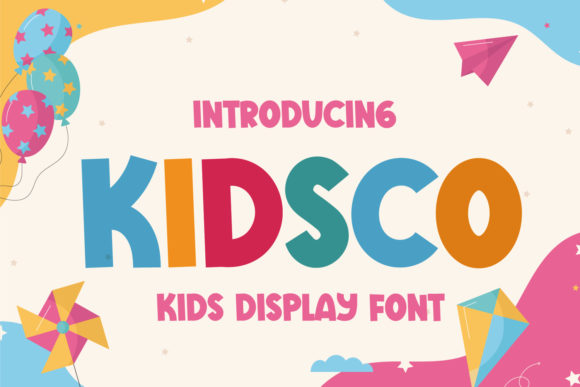
Introducing Kidsco Font, a captivating and expressive display font designed by OKEVECTOR. With its bold and thick lettering, Kidsco brings a playful and vibrant touch to your designs.
Are you searching for the perfect font to bring your children-themed projects to life? Look no further! Kidsco Font is the ideal choice to add that extra dose of charm and creativity.
With its eye-catching appeal, Kidsco Font instantly grabs attention and creates a lasting impact. Whether you're crafting posters, invitations, book covers, or even logos, this font will make your designs stand out from the crowd.
Imagine the joy and excitement that emanates from a child's face when they see their favorite characters or stories come to life. Kidsco Font captures that same essence, making it the go-to choice for all your kid-focused projects.
One of the key features of Kidsco Font is its versatility. It seamlessly blends with various design elements, allowing you to create captivating compositions that generate feelings of wonder and delight.
Not only does Kidsco Font complement children-themed designs, but it also pairs exceptionally well with bright and vibrant colors. The combination of this font's boldness and vivid hues creates a visually stunning and harmonious experience for your audience.
Unlock your imagination and create magical worlds with Kidsco Font. From whimsical storybooks to educational materials, this font brings your ideas to life with its captivating personality.
But that's not all! Kidsco Font is not limited to just children's projects. Its charismatic appeal extends to a wide range of design applications. Whether you're designing for events, advertisements, or even branding, this font adds a touch of playfulness and creativity that resonates with people of all ages.